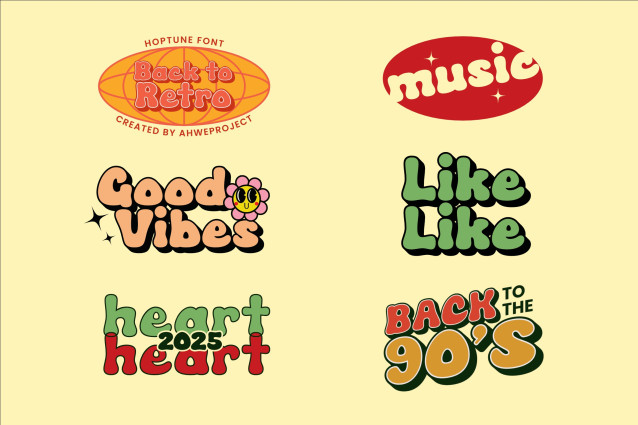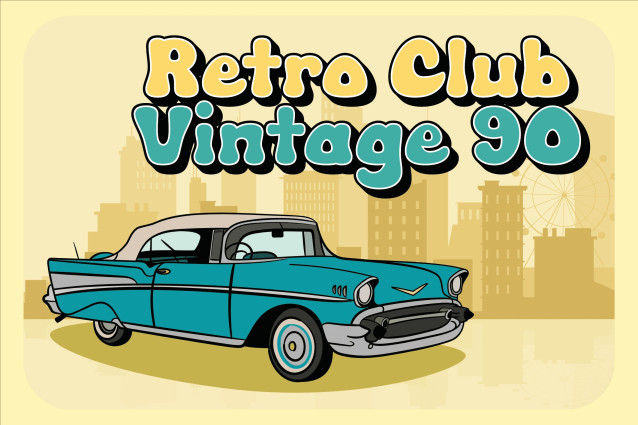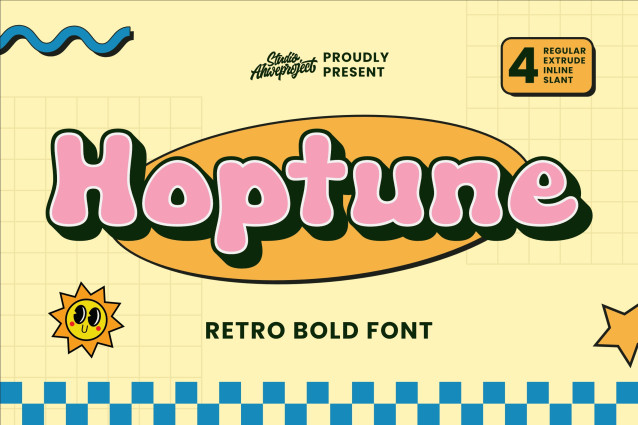
Hoptune Font
Hoptune Font, a vibrant retro bold font that captures the charm of the ’70s and ’90s in a fun, bubbly style! With its chunky curves, playful vibe, and bold shadow, Hoptune is perfect for branding, posters, packaging, children’s projects, and anything that needs a pop of joyful energy.
Hoptune comes in 4 unique styles: Regular, Extrude, Inline, and Slant – giving you creative flexibility for standout designs. Whether you’re crafting a nostalgic logo or a cheerful headline, Hoptune will make your words dance with personality.